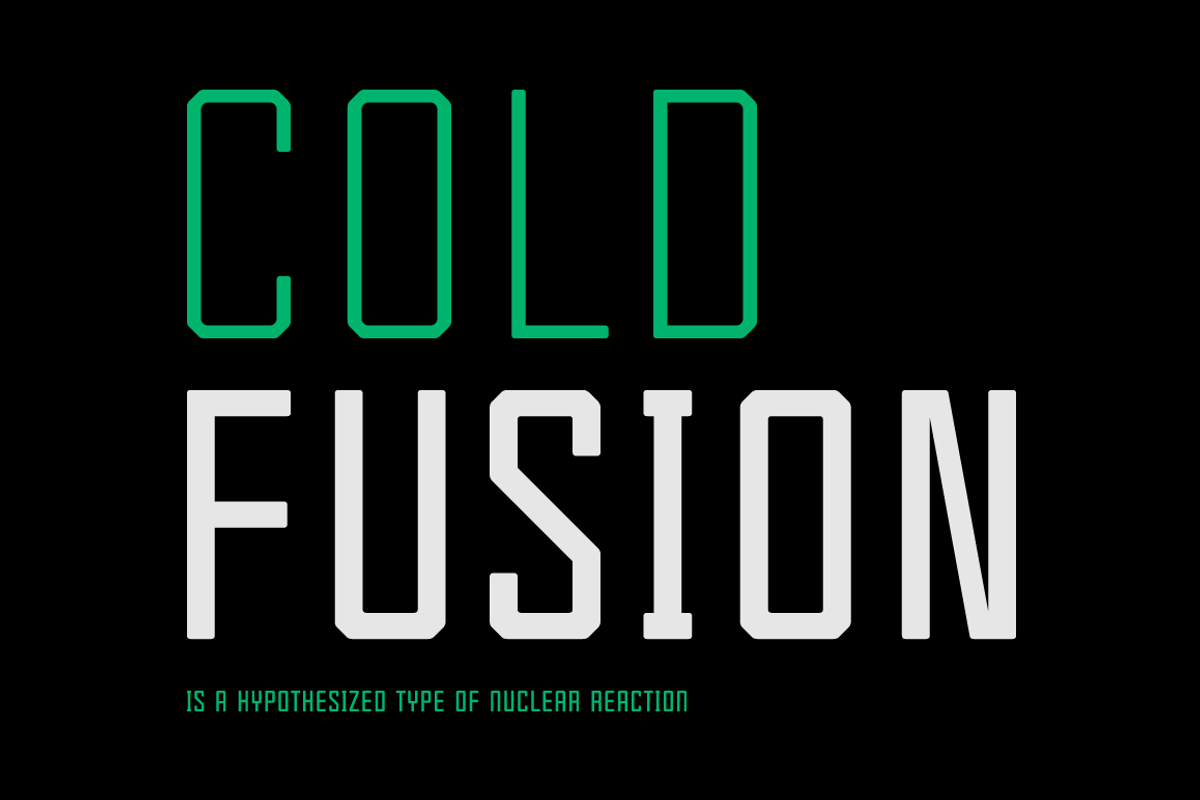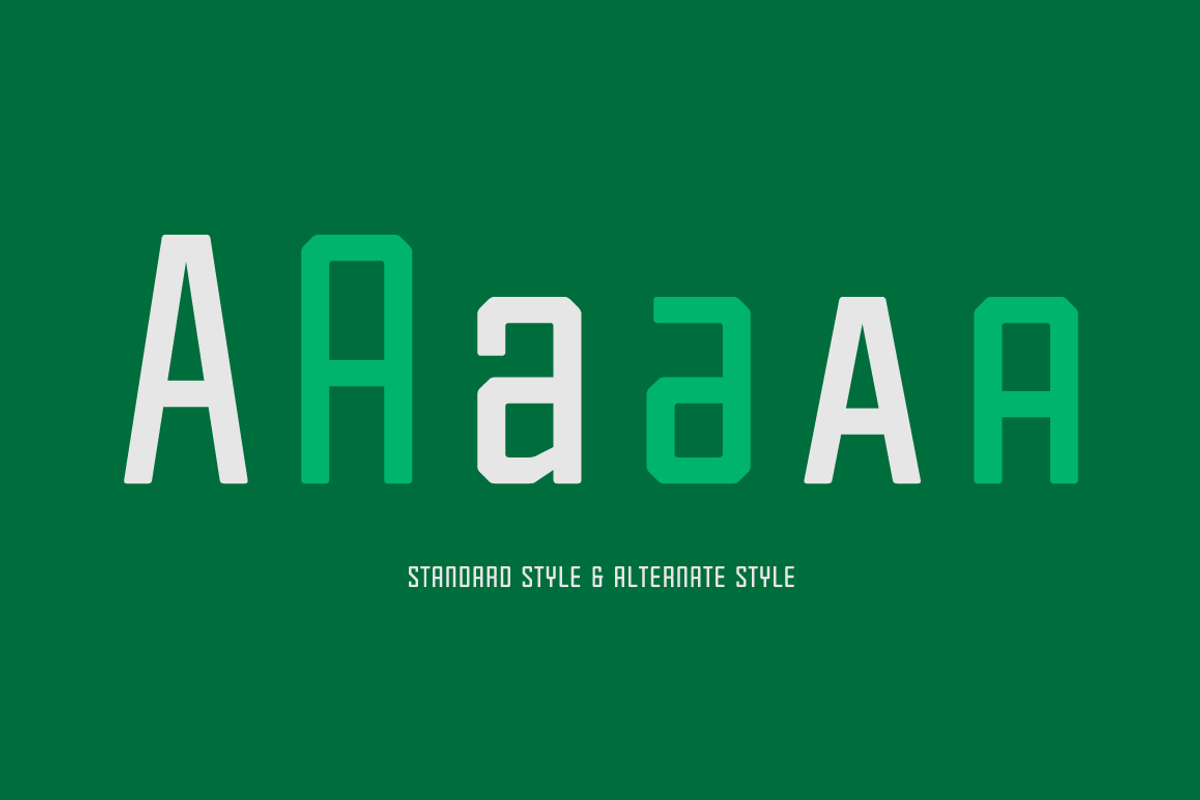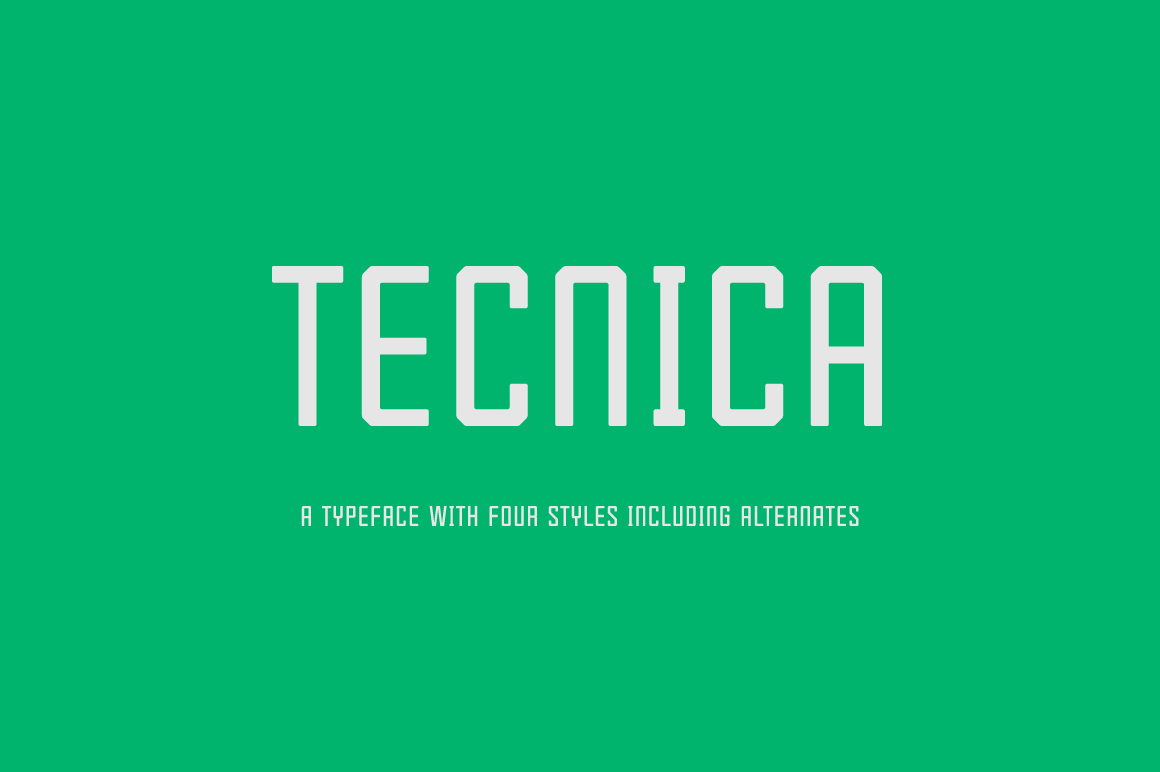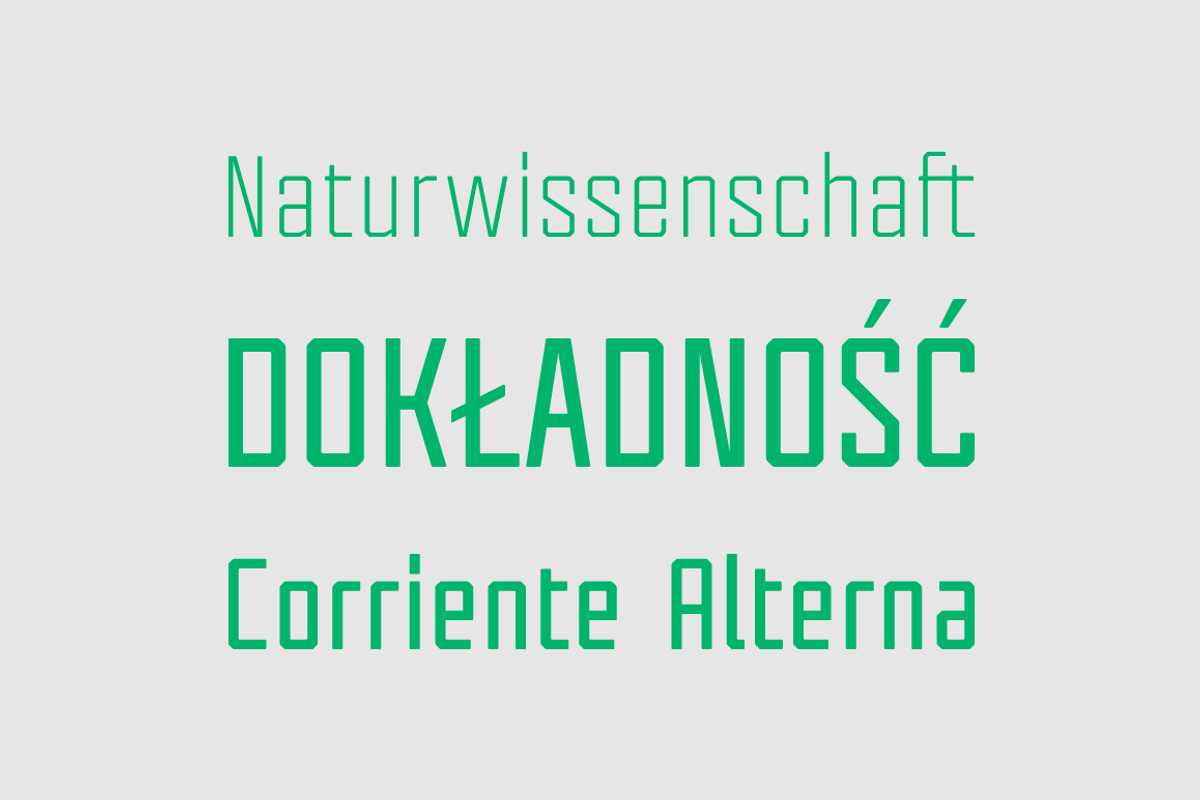
Tecnica Font Family
Designer: Pablo Balcells
Design date: 2014
Tecnica font family has been designed for Graviton Font Foundry by Pablo Balcells. It is a modular, geometric, sans serif typeface with a slightly condensed design and subtle rounded angles. It has been conceived to be most suitable for all sized headlines, as well as short and middle length text blocks. The standard styles give texts a classic appearence while alternate styles give texts a playfull one.
Tecnica consists of 4 styles, 2 weights plus alternates, each containing small caps and glyph coverage for several languages.